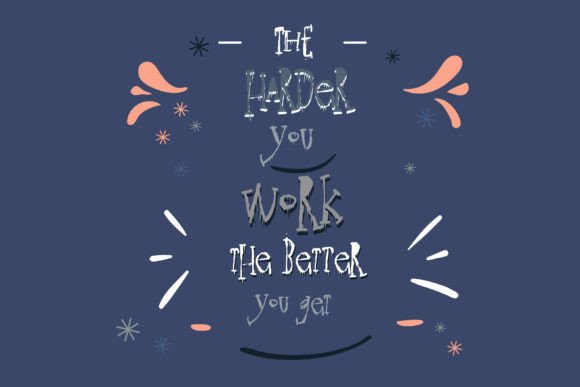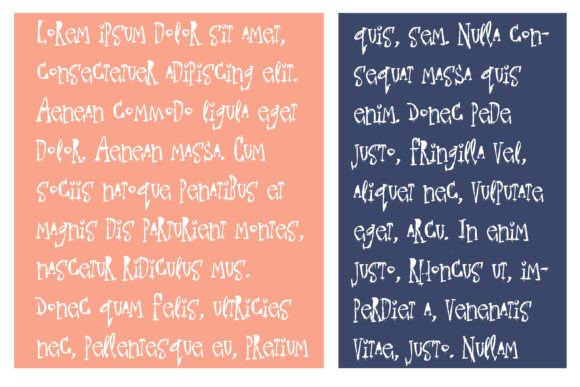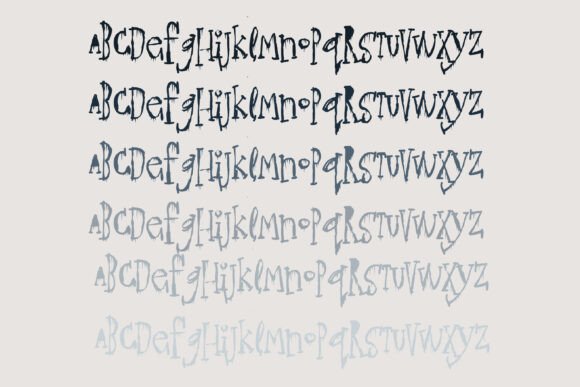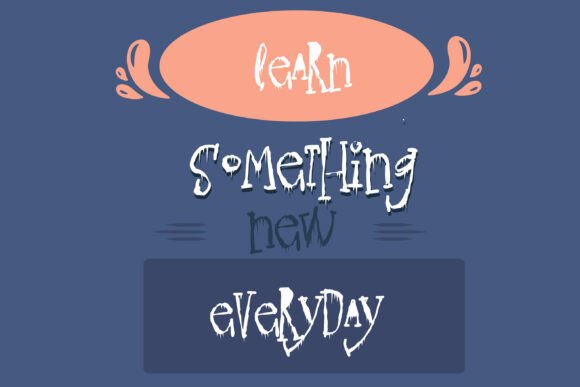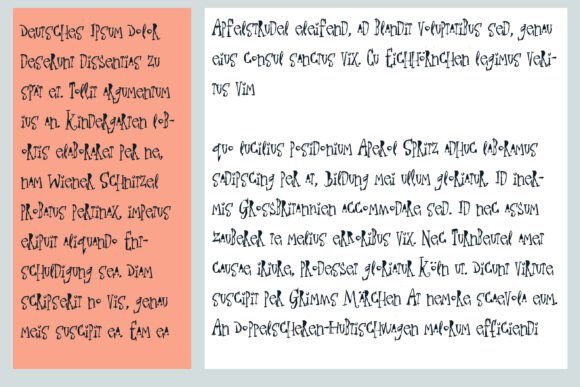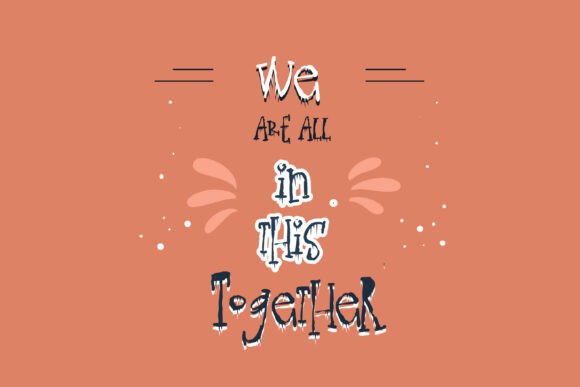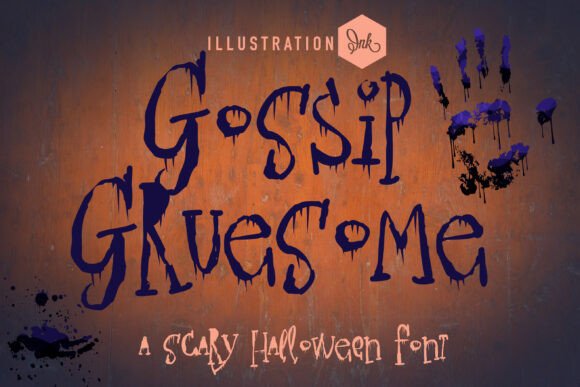
Gossip Gruesome Font: A Hand-Crafted Serif with a Bloody Twist
In the world of typography, fonts can evoke emotions, convey personalities, and add a touch of uniqueness to any design project. For designers and crafters looking for a font that exudes a sense of eeriness and playfulness, the Gossip Gruesome Font is a perfect choice. This hand-crafted serif font is designed to look like it was written with drippy blood, making it a standout addition to any creative project.
A hand-crafted font is a typeface that is designed to mimic the look and feel of handwriting. It is often used for invitations, greeting cards, and other items where a personal touch is desired. Handwritten fonts can be either formal or informal, and they can be used for a variety of purposes, from wedding invitations to packaging design.
Hand-crafted fonts are typically created using a combination of traditional drawing techniques and digital tools. The process involves drawing each letter, number, and symbol by hand, often using a variety of mediums such as ink, pencil, or even digital drawing software. The result is a unique and distinctive font that can add a touch of personality to any design project.
Features of the Gossip Gruesome Font
The Gossip Gruesome Font is a hand-crafted serif font that features drippy blood effects, giving it a gruesome yet fascinating look. Here are some of its key features:
- Hand-crafted design: Each letter, number, and symbol is carefully drawn by hand to create a unique and distinctive look.
- Serif style: The font features serifs, which are small lines or flourishes at the ends of the letters.
- Drippy blood effects: The font features drippy blood effects, giving it a gruesome and eerie look.
- Versatile: The font can be used for a variety of purposes, from invitations and greeting cards to packaging design and more.
Uses of the Gossip Gruesome Font
The Gossip Gruesome Font is a versatile font that can be used for a variety of creative projects. Here are some ideas:
- Invitations and greeting cards: The font’s hand-crafted design and drippy blood effects make it perfect for creating spooky and unique invitations and greeting cards.
- Packaging design: The font can be used for packaging design, particularly for products with a spooky or eerie theme.
- Social media graphics: The font can be used to create eye-catching social media graphics, particularly for Halloween or horror-themed content.
- Signage and display: The font can be used for signage and display purposes, particularly for businesses or events with a spooky or eerie theme.
Tips for Using the Gossip Gruesome Font
Here are some tips for using the Gossip Gruesome Font:
- Use it sparingly: The font’s drippy blood effects can be overwhelming if used excessively. Use it sparingly to create a bold and eye-catching design.
- Pair it with a neutral font: Pair the Gossip Gruesome Font with a neutral font to create contrast and add visual interest to your design.
- Experiment with colors: The font’s drippy blood effects can be enhanced with bold and bright colors. Experiment with different colors to create a unique look.
The Gossip Gruesome Font is a unique and distinctive hand-crafted serif font that features drippy blood effects. Its versatility and eerie look make it perfect for a variety of creative projects, from invitations and greeting cards to packaging design and social media graphics. With its hand-crafted design and bold look, the Gossip Gruesome Font is sure to add a touch of personality to any design project.